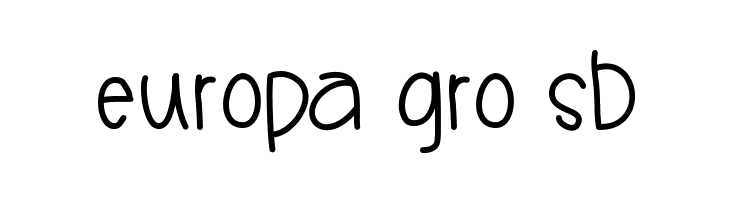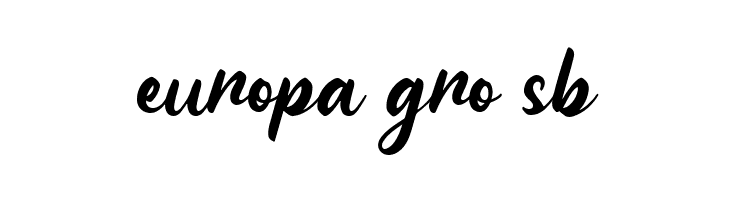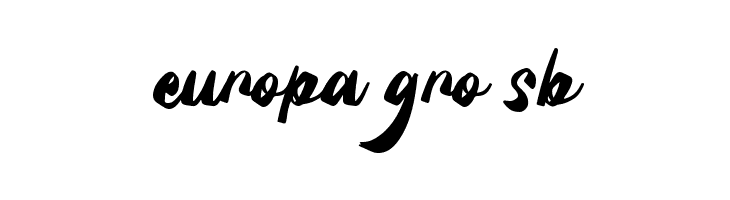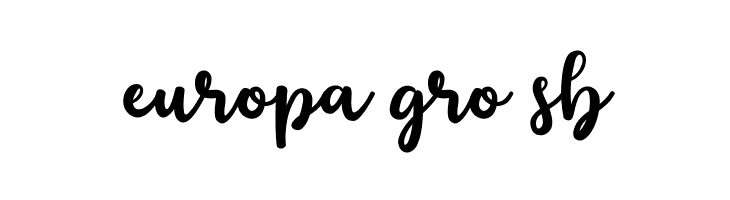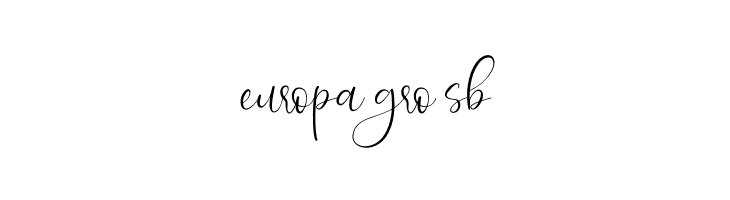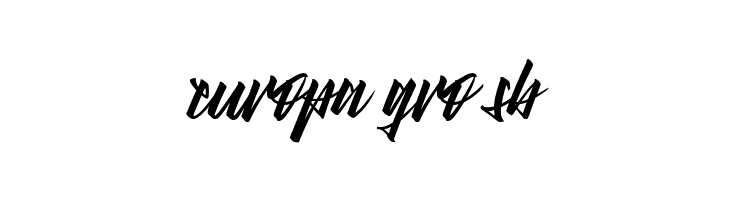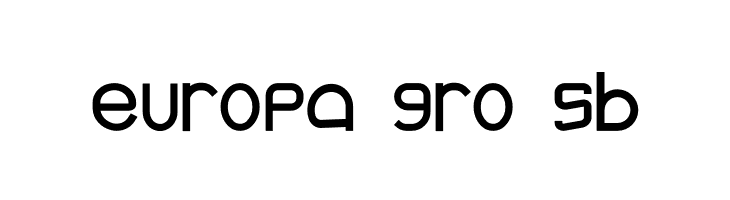
A cursive-inspired font with elegant, flowing strokes and calligraphic flair.
A bold, expressive script font with a dynamic and playful flow.
A bold, flowing script font with dynamic curves and expressive style.
A playful and elegant script font with bold, flowing strokes and interconnected letters.
A graceful and elegant script font with flowing, interconnected letters.
A bold, energetic script font with flowing, interconnected strokes.
A futuristic, geometric font with consistent stroke width and rounded edges.
A modern, elegant script font with a flowing, handwritten style.
A dynamic and elegant script font with flowing letterforms and a sophisticated style.